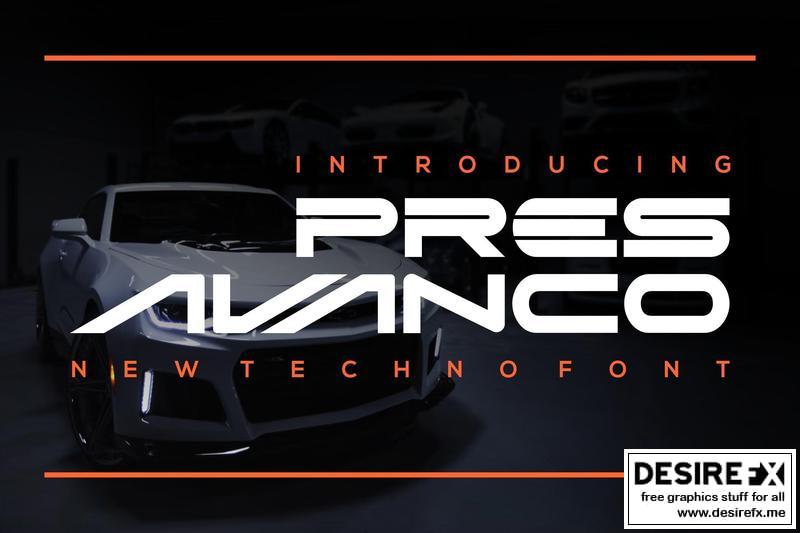
PresAvanco Font HDJGUXJ
Introducing our new product PresAvanco Font – Modern Font
PresAvanco Font– Modern Font is a bold and authentic display font. The font is suitable for any branding project like logo, t-shirt printing, esport, and many more. outstanding in a wide range of contexts.